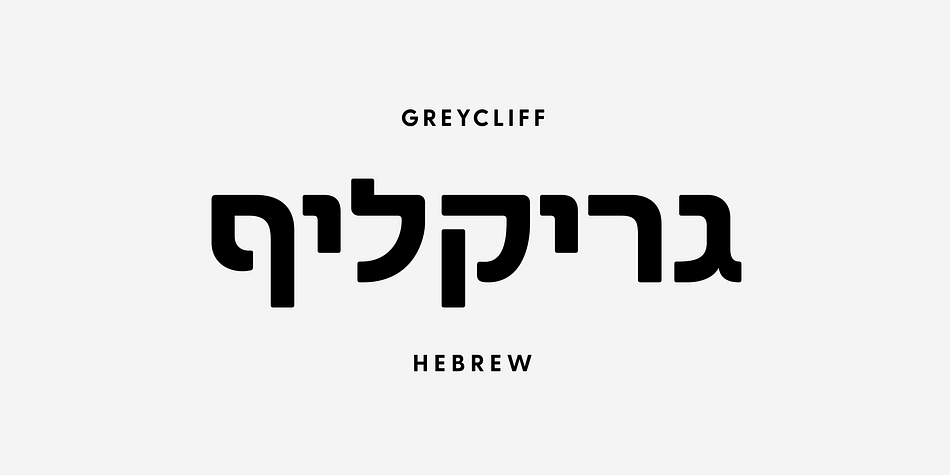
Greycliff Hebrew CF
Designed by Connary Fagen, Greycliff Hebrew CF is a sans serif font family. This typeface has nine styles and was published by Connary Fagen Type Design.
Greycliff Hebrew CF adapts Greycliff’s soft, geometric design to the Hebrew script. Both Latin and Hebrew glyphs are included, allowing for visually cohesive multiple-script applications. Greycliff’s original nine weights are covered, alongside diacritics, cantillation marks, and wide Hebrew-script language support.
Greycliff Hebrew CF works as a complete, self-contained type system, with both Hebrew and Latin scripts included and designed to compliment one another.